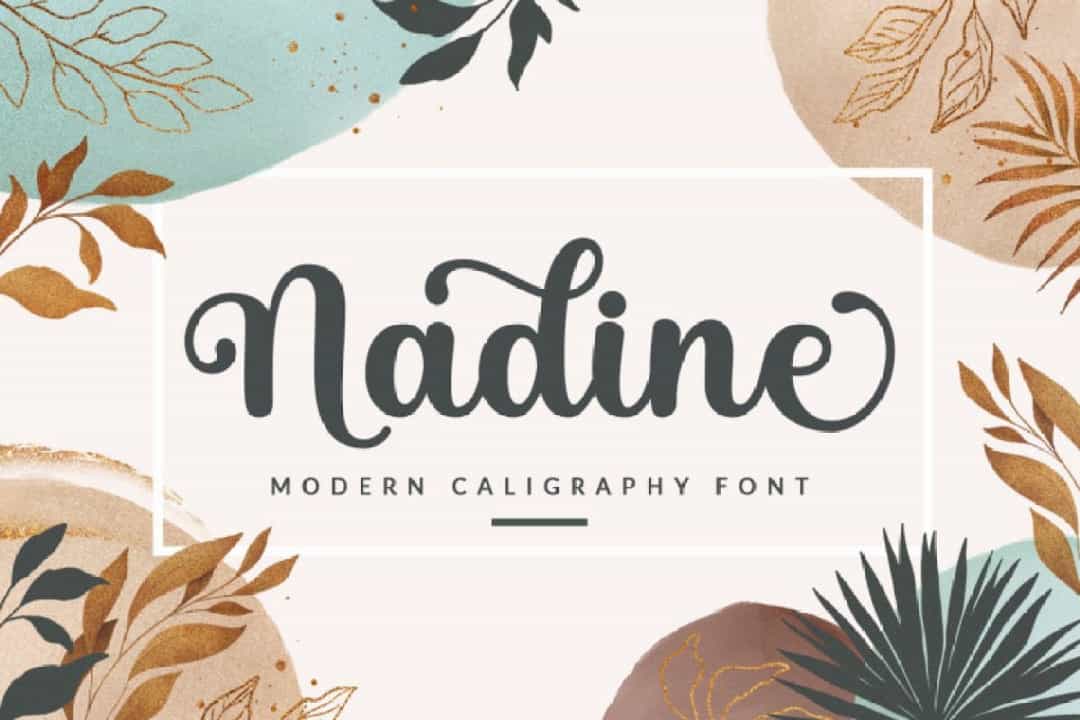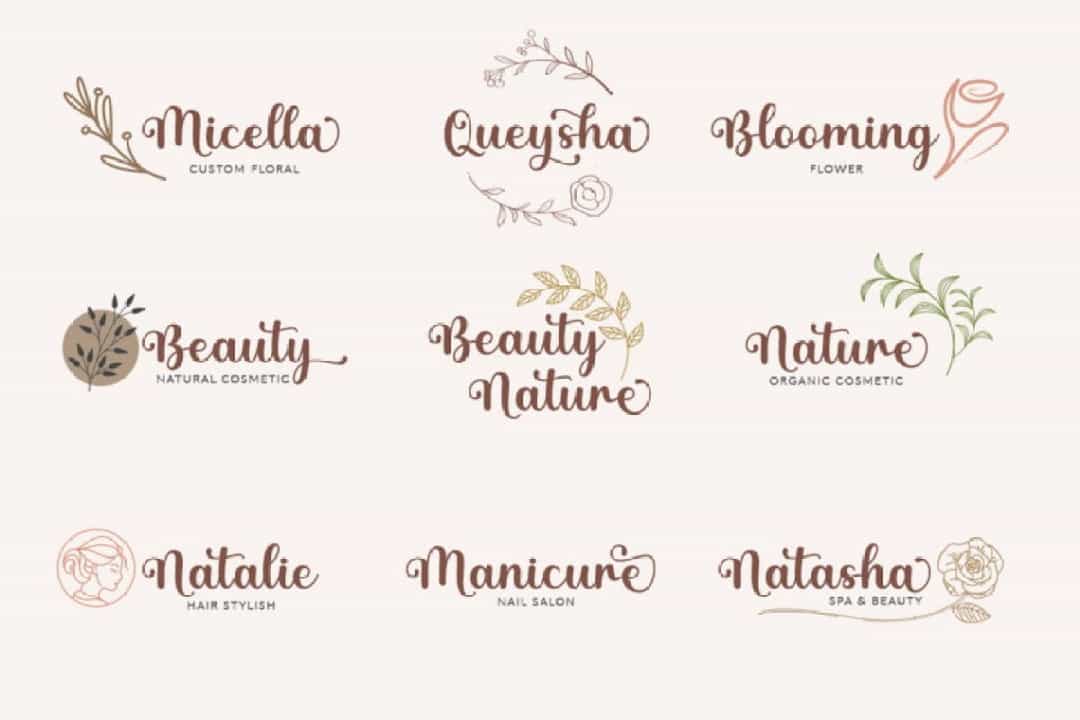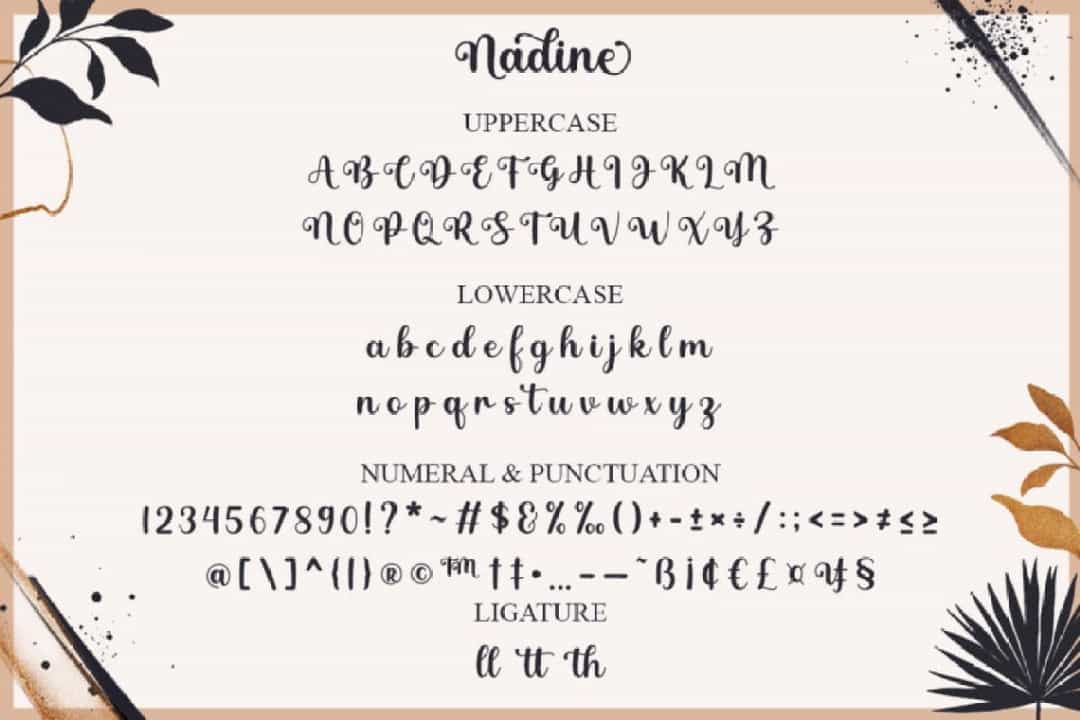
Nadine is a elegant and graceful script font with graceful characters that give to this font a beautiful effect and a nice balance. Consequently, it can be combined with a number of styles. You should apply this font in your most creative concepts to observe it give life to them!